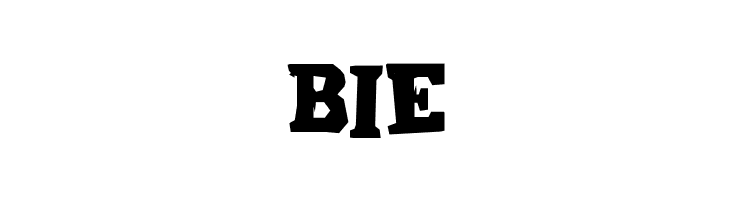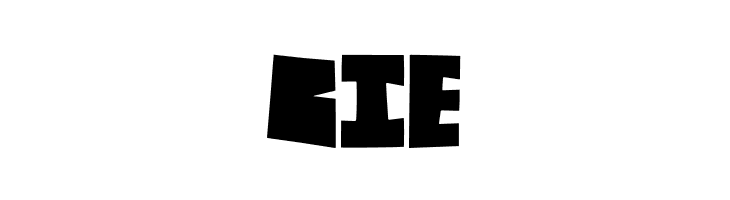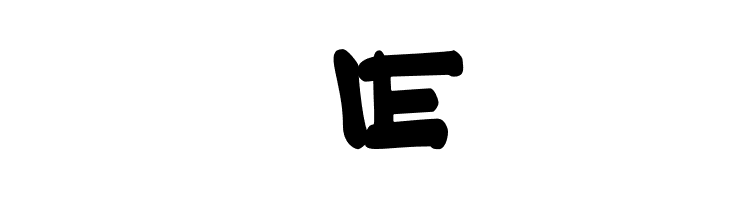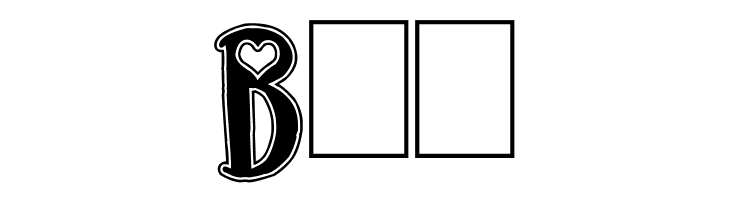
A bold, rugged font with thick strokes and a hand-crafted appearance.
A bold, angular font with a geometric, blocky design ideal for modern, edgy projects.
A playful, handwritten font with bold, irregular strokes and a casual feel.
A playful, handwritten font with rounded edges and a casual, approachable style.
A charming and elegant handwritten cursive font with fluid letterforms.
A bold, handwritten-style font with a playful and energetic vibe.
A bold, decorative font with heart motifs and a playful style.
A pixelated, retro-style font with a digital, blocky appearance.
A playful and rounded font with smooth curves and a whimsical touch.